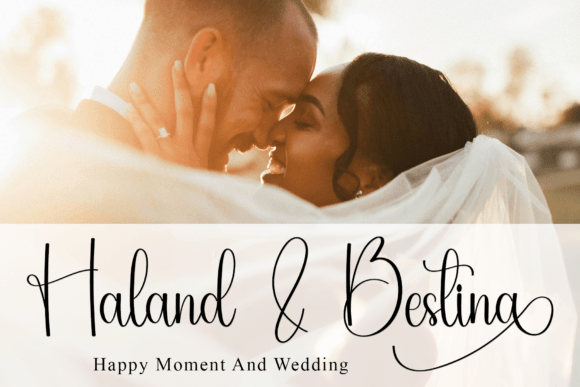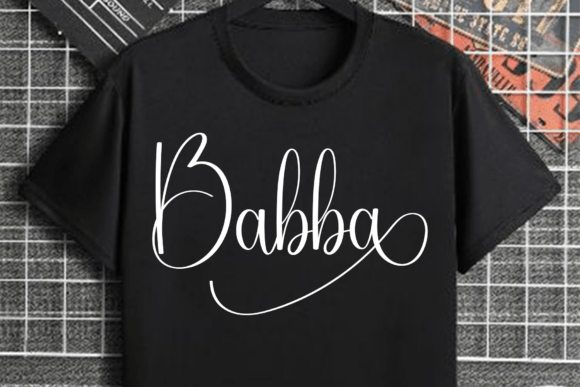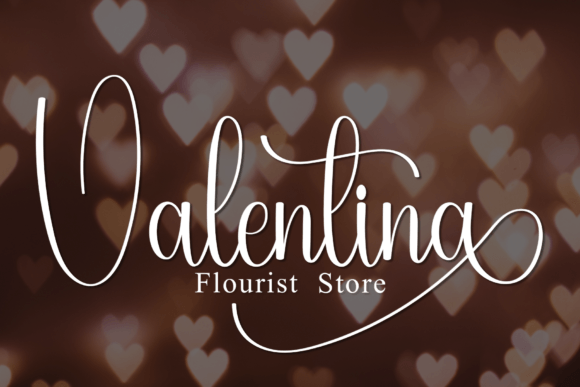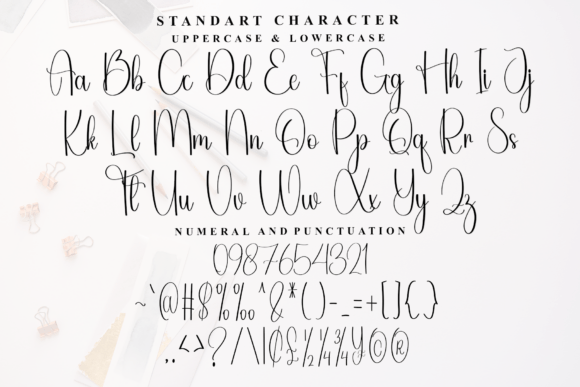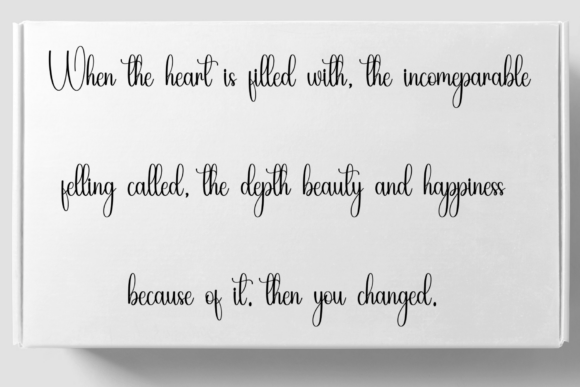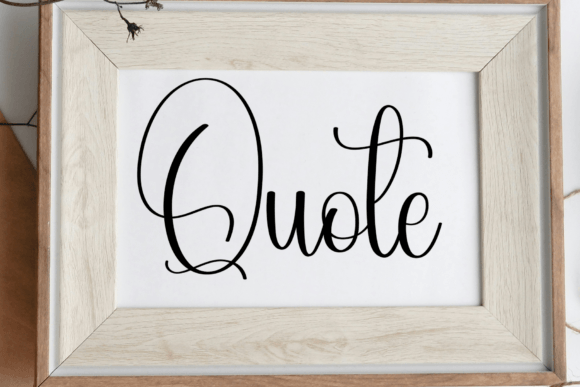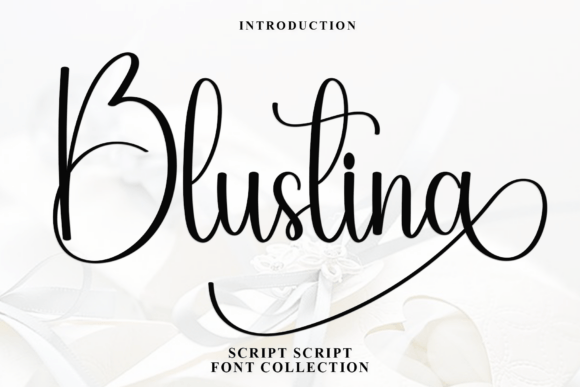
Introducing Blustina Font: The Ultimate Casual and Creative Companion for Designers and Crafters
Are you tired of using the same old fonts for your personal projects, invitations, and social media graphics? Look no further than Blustina Font, a casual and creative typeface that exudes warmth and friendliness. With its round, playful strokes, Blustina creates a relaxed and approachable feel that’s perfect for designers and crafters looking to add a personal touch to their work.
The Charm of Blustina Font
Blustina Font boasts a charming, hand-drawn aesthetic that’s sure to add a fun and unique touch to any design. Its casual and creative vibe makes it an ideal choice for a wide range of projects, from personal invitations and social media graphics to craft projects and DIY tutorials. Whether you’re a seasoned designer or a crafty DIY enthusiast, Blustina Font is sure to become your go-to companion for all your creative endeavors.
Key Features of Blustina Font
So, what sets Blustina Font apart from other fonts? Here are just a few of its key features:
- Casual and Creative: Blustina Font is designed to be casual and creative, making it perfect for personal projects and DIY tutorials.
- Warm and Friendly: The font’s round, playful strokes create a warm and friendly feel that’s sure to engage your audience.
Why Choose Blustina Font?
So, why should you choose Blustina Font for your next project? Here are just a few reasons:
- Easy to Read: Blustina Font is designed to be easy to read, making it perfect for body text and captions.
- Highly Versatile: The font’s casual and creative vibe makes it suitable for a wide range of projects, from personal invitations to social media graphics.
- Unique and Creative: Blustina Font’s hand-drawn aesthetic adds a unique and creative touch to any design, setting it apart from more traditional fonts.
Using Blustina Font in Your Designs
Using Blustina Font in your designs is easy. Here are just a few tips to get you started:
- Pair it with Other Fonts: Blustina Font pairs well with other fonts, making it easy to create unique and creative typography combinations.
- Experiment with Colors: The font’s casual and creative vibe makes it perfect for experimenting with different colors and textures.
- Add Graphics and Illustrations: Blustina Font is perfect for adding graphics and illustrations to your designs, making it easy to create visually appealing and engaging content.
In conclusion, Blustina Font is a casual and creative typeface that’s perfect for designers and crafters looking to add a personal touch to their work. With its round, playful strokes and charming, hand-drawn aesthetic, Blustina Font is sure to become your go-to companion for all your creative endeavors. Whether you’re working on a personal project, invitation, or social media graphic, Blustina Font is the perfect choice.